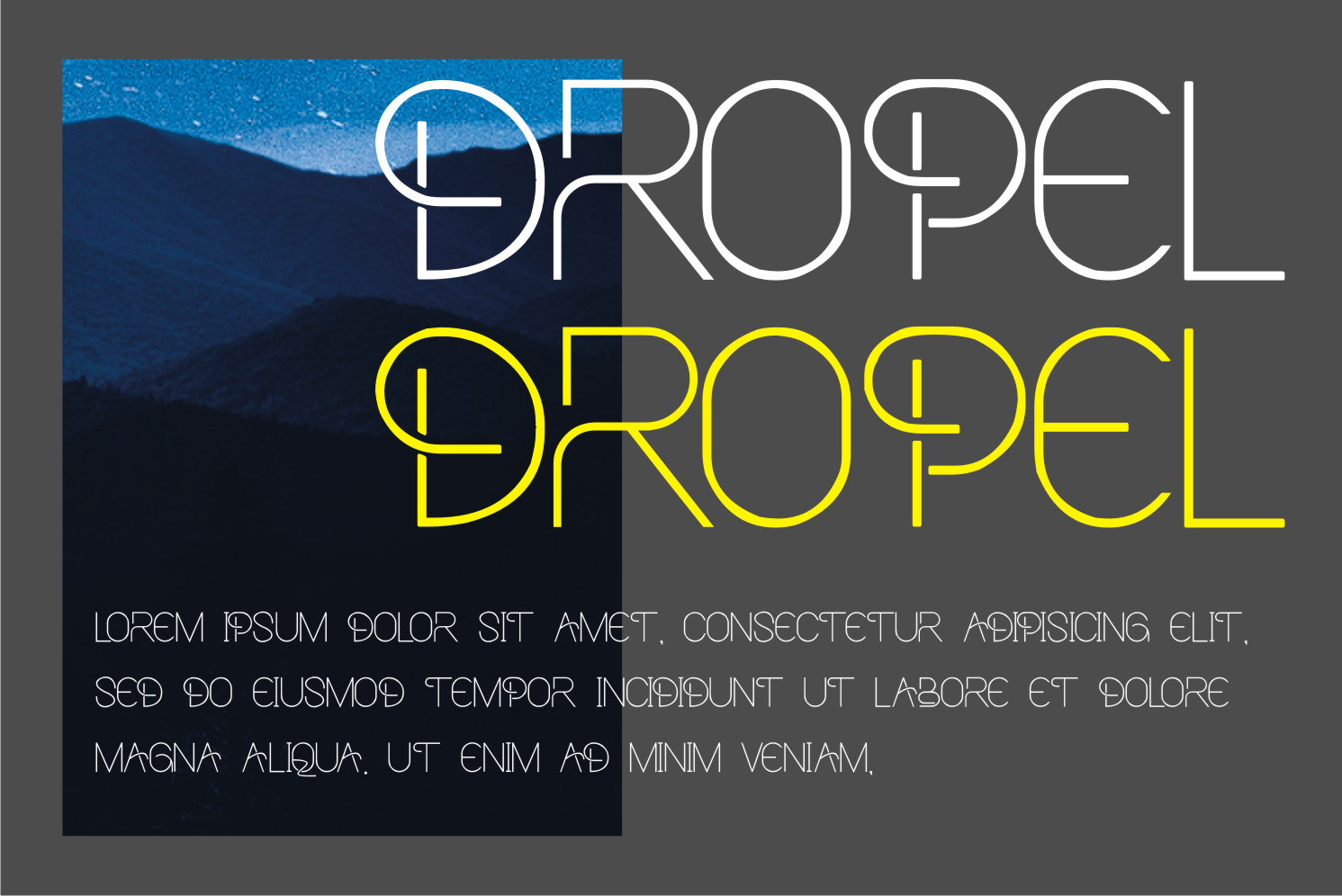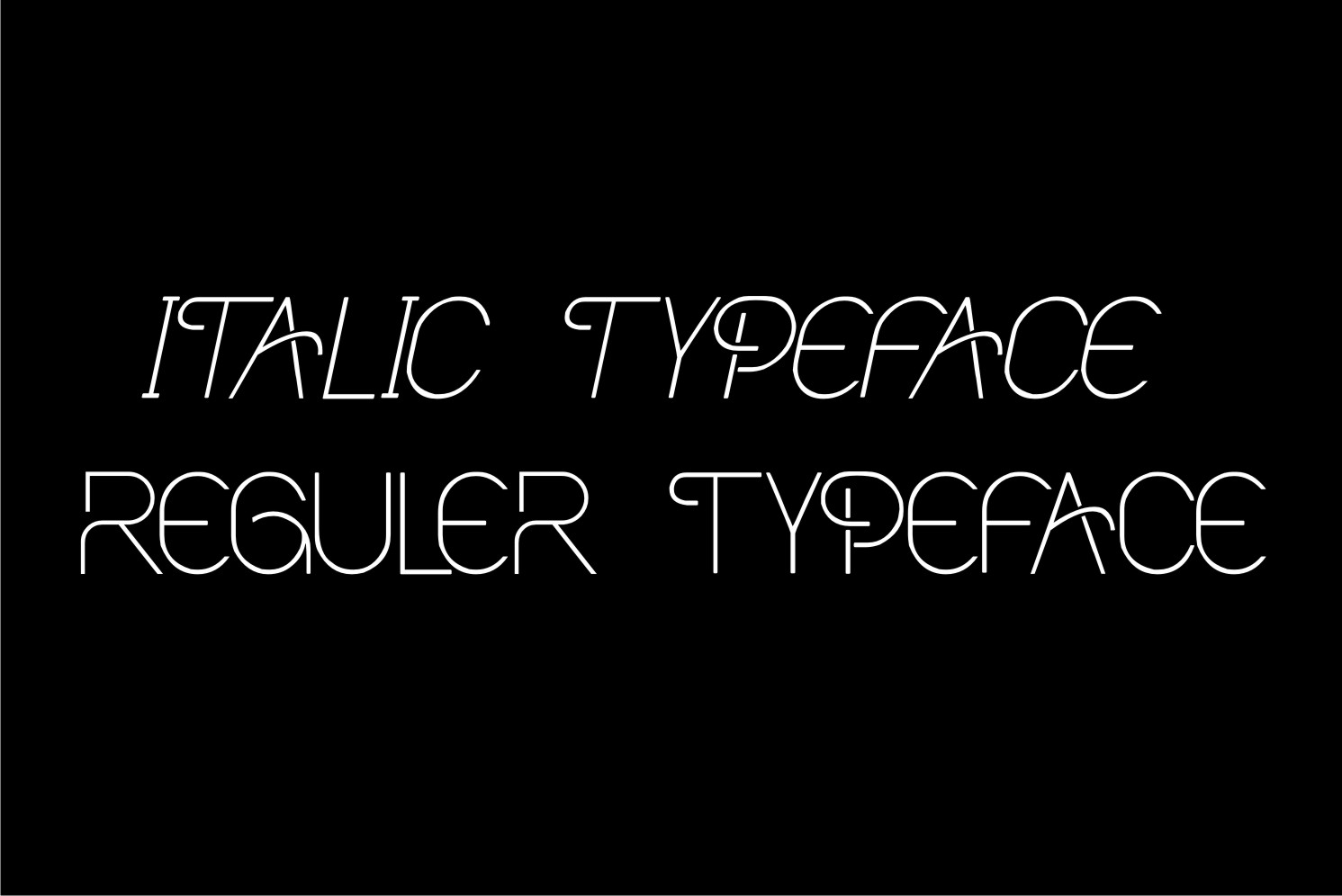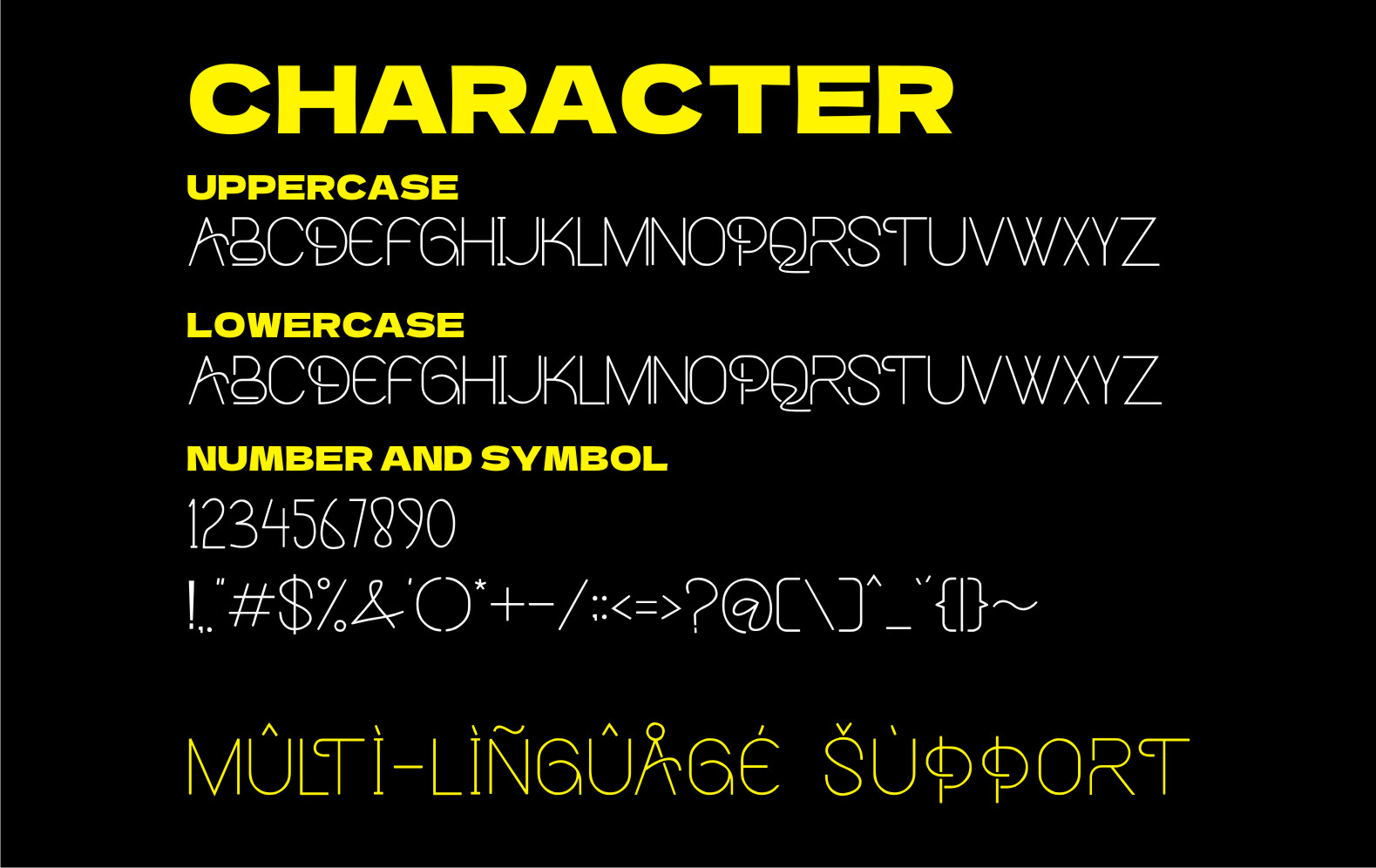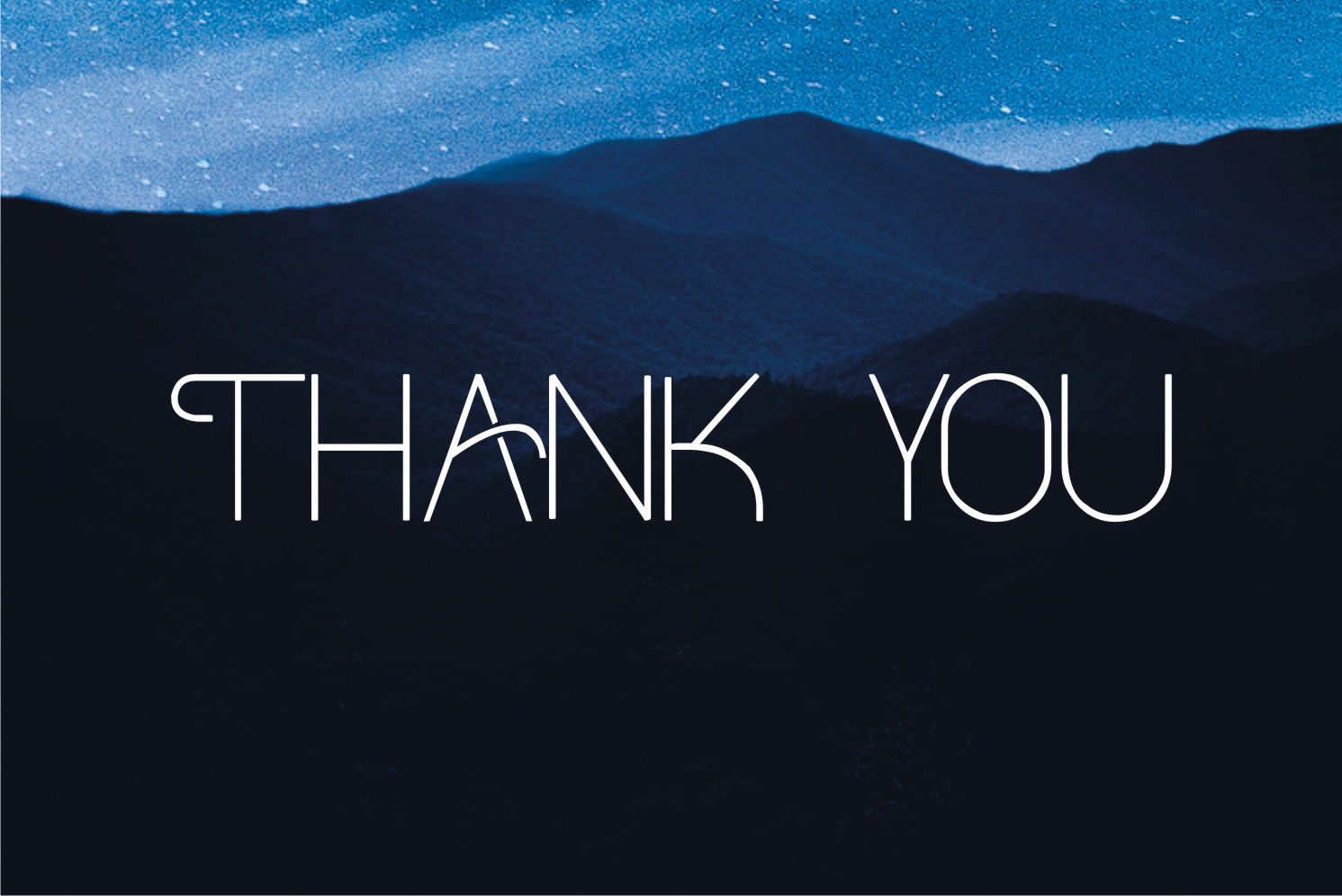
Artaron Display Font
It’s a cool, elegant and distinct display font. This font is suitable for designs such as t-shirts, sportswear, logos, advertisements, clothing, and more.